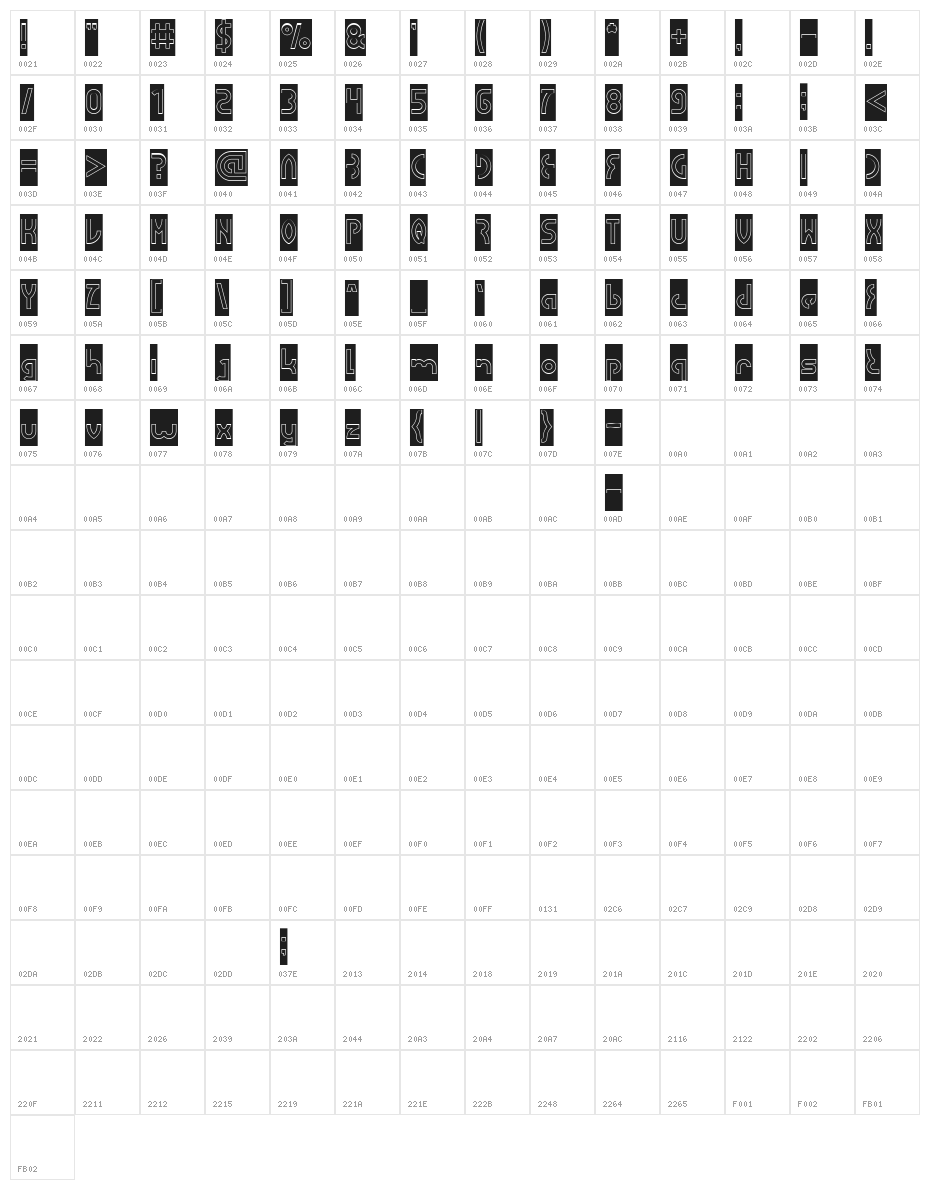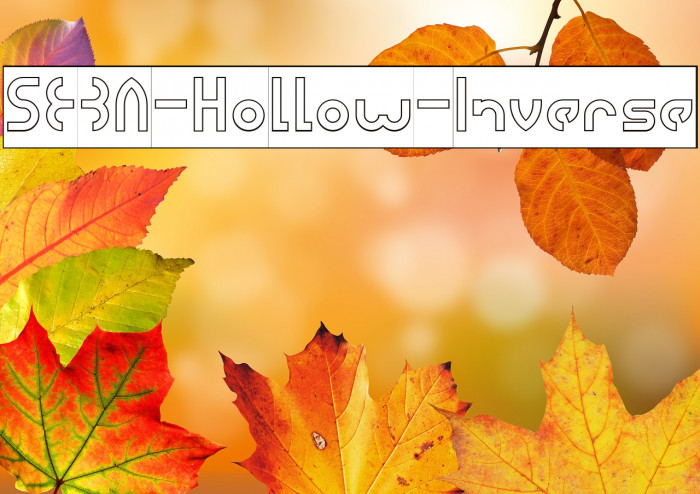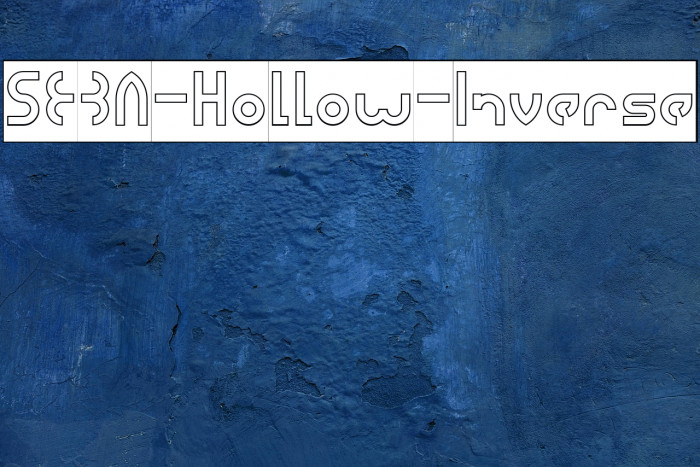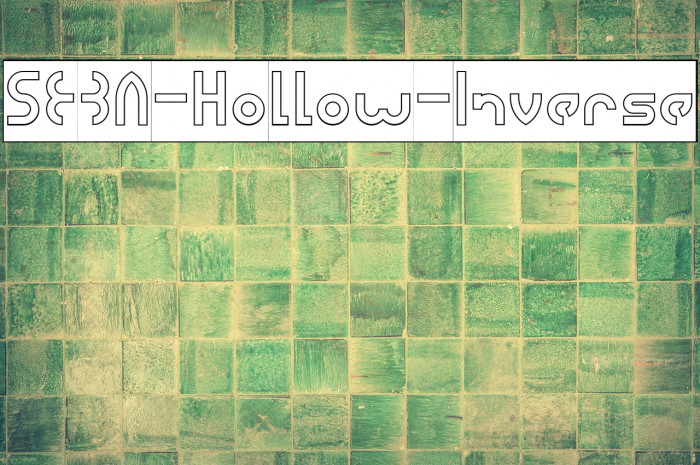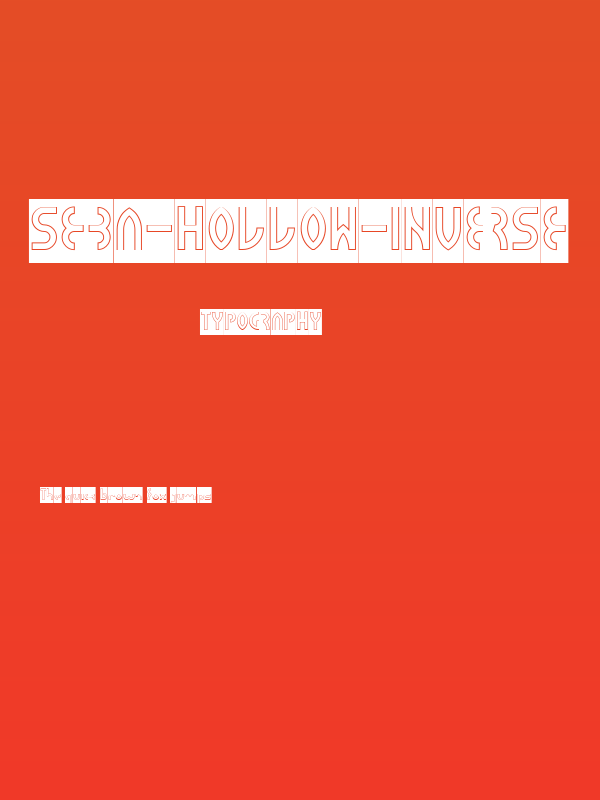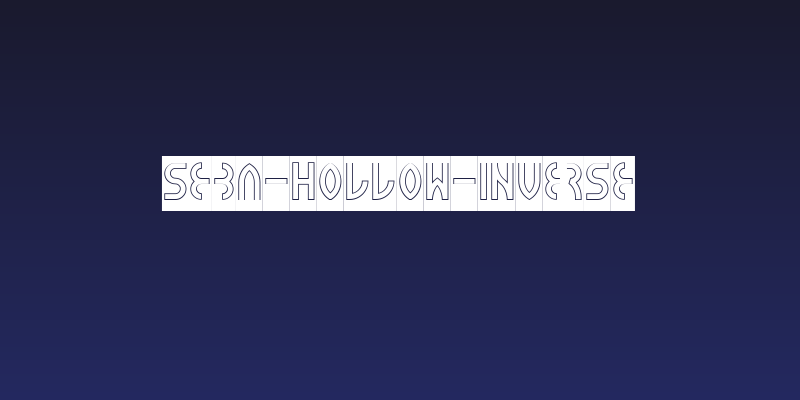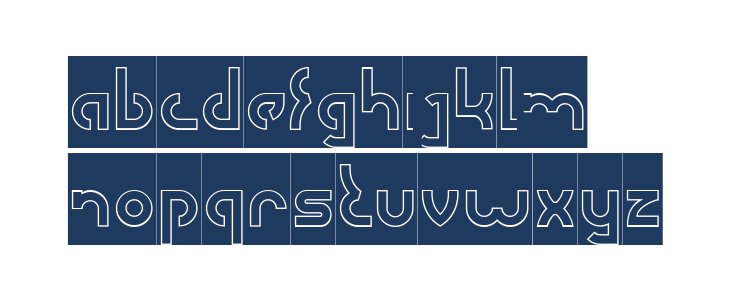
SEBA-Hollow-Inverse Font
SEBA-Hollow-Inverse Description
This font features a unique hollow design with an inverse style, where the letters are outlined with a bold stroke, creating a striking visual effect. The uppercase and lowercase letters maintain a consistent geometric form, with sharp angles and clean lines. The numerals and special characters follow the same design principles, ensuring uniformity across all glyphs. The font's hollow nature gives it a modern and futuristic appearance, making it stand out in any design context. Its distinct style is both eye-catching and versatile, suitable for various creative applications.
| Proposed Projects | Ideal for futuristic branding, digital artwork, posters, and innovative design projects. |